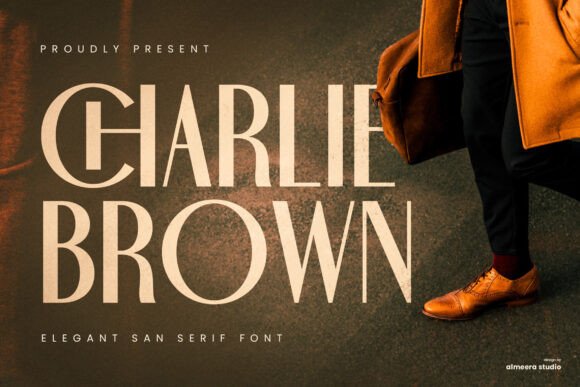
Introducing Charlie Brown – The Elegant Modern Sans Font
Are you looking for a font that exudes elegance, modernity, and simplicity? Look no further than Charlie Brown, a stunning sans-serif font perfect for a variety of design applications. In this article, we’ll delve into the world of Charlie Brown, exploring its features, uses, and benefits, as well as provide an in-depth look at the font’s design and versatility.
What is Charlie Brown Font?
Charlie Brown is a modern, elegant, and simple font designed specifically for display purposes. Its clean lines, precise curves, and balanced proportions make it an ideal choice for headings, logos, branding, magazines, product packaging, and invitations. This versatile font is perfect for designers seeking a sophisticated and contemporary look for their projects.
Key Features of Charlie Brown Font
- Modern and Elegant Design: Charlie Brown boasts a sleek and refined design, making it perfect for projects that require a touch of sophistication.
- Simple and Clean Lines: The font’s simple and clean lines ensure excellent readability, even at smaller sizes.
- Versatile and Adaptable: Charlie Brown can be used for a wide range of design applications, from headings and logos to branding and packaging.
- Excellent Legibility: The font’s carefully crafted letterforms ensure excellent legibility, making it suitable for both digital and print applications.
Uses of Charlie Brown Font
Charlie Brown’s versatility makes it an excellent choice for various design projects, including:
- Headings and Titles: Use Charlie Brown to create stunning headings and titles that grab attention and convey elegance.
- Logos and Branding: The font’s modern and sophisticated design makes it perfect for logos, branding, and identity design.
- Magazines and Editorials: Charlie Brown’s clean lines and excellent readability make it an excellent choice for magazine and editorial design.
- Product Packaging: The font’s versatility and adaptability make it suitable for product packaging design, adding a touch of sophistication to any product.
- Invitations and Events: Use Charlie Brown to create beautiful and elegant invitations for weddings, parties, and other events.
Benefits of Using Charlie Brown Font
By choosing Charlie Brown, designers can enjoy numerous benefits, including:
- Unique and Distinctive Design: Charlie Brown’s modern and elegant design sets it apart from other fonts, ensuring your project stands out.
- Improved Readability: The font’s careful design ensures excellent readability, making it perfect for both digital and print applications.
- Flexibility and Adaptability: Charlie Brown can be used for a wide range of design applications, making it an excellent addition to any designer’s font library.
- Time-Saving: With Charlie Brown, designers can save time and effort, as the font’s versatility and adaptability eliminate the need for extensive font pairing and experimentation.
Design and Typography
Charlie Brown’s design is rooted in the principles of modern typography, with a focus on simplicity, elegance, and legibility. The font’s letterforms are carefully crafted to ensure excellent readability, while its clean lines and precise curves create a sense of sophistication and refinement.
The font’s typography is characterized by:
- Geometric Shapes: Charlie Brown’s letterforms are based on geometric shapes, providing a sense of stability and balance.
- Clean Lines and Curves: The font’s clean lines and precise curves create a sense of elegance and refinement.
- Balanced Proportions: Charlie Brown’s letterforms are designed with balanced proportions, ensuring excellent readability and legibility.
In conclusion, Charlie Brown is an exceptional font that offers a unique blend of modernity, elegance, and simplicity. Its versatility, adaptability, and excellent readability make it an excellent choice for a wide range of design applications. Whether you’re a designer, typographer, or simply a font enthusiast, Charlie Brown is definitely worth exploring.
With its clean lines, precise curves, and balanced proportions, Charlie Brown is the perfect font for designers seeking to add a touch of sophistication and elegance to their projects. So why not give Charlie Brown a try and experience the benefits of this stunning modern sans font for yourself?